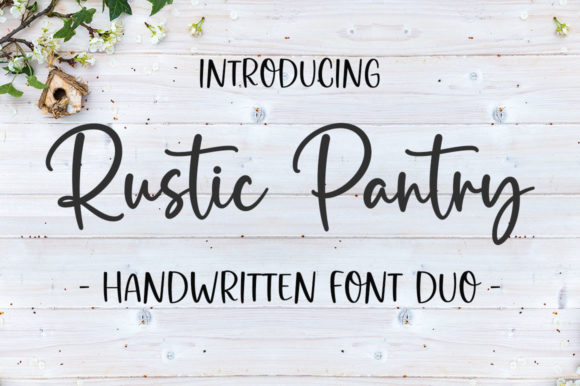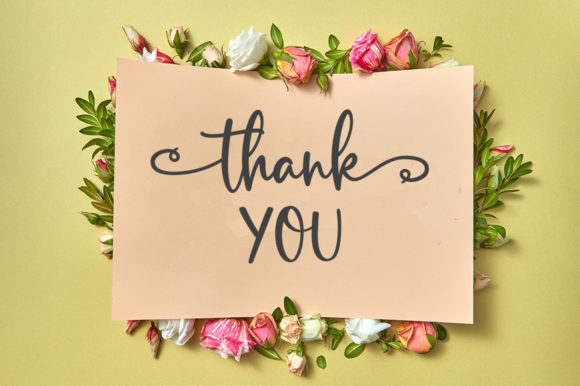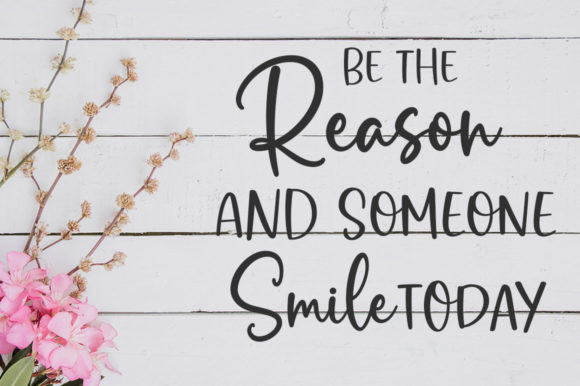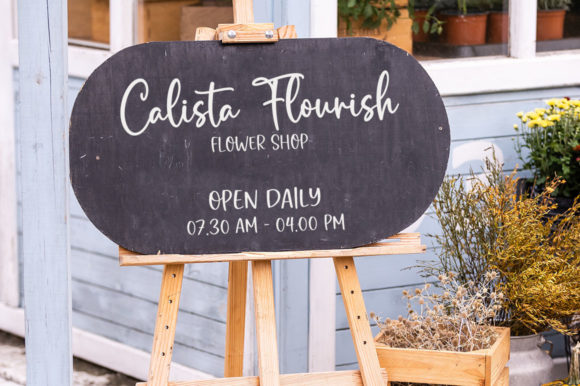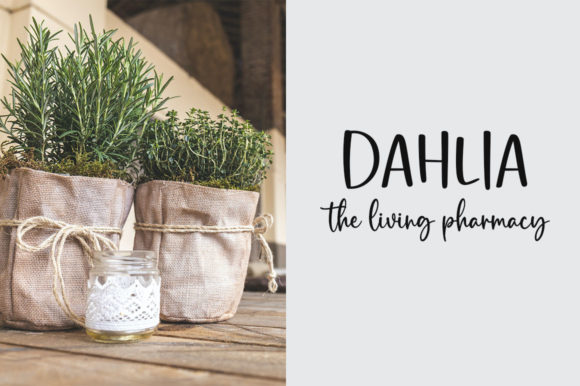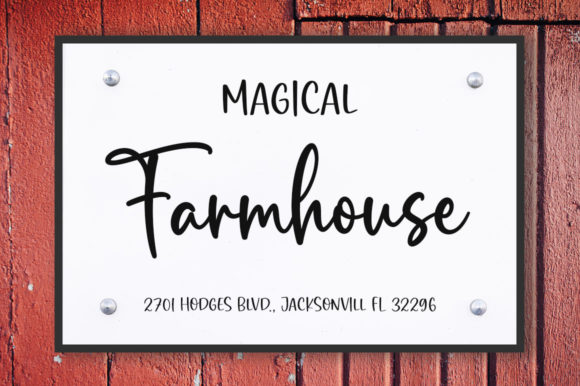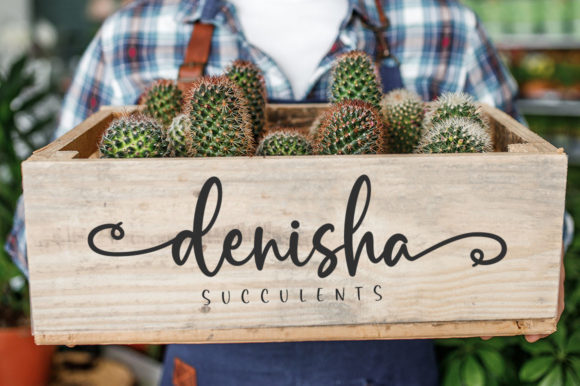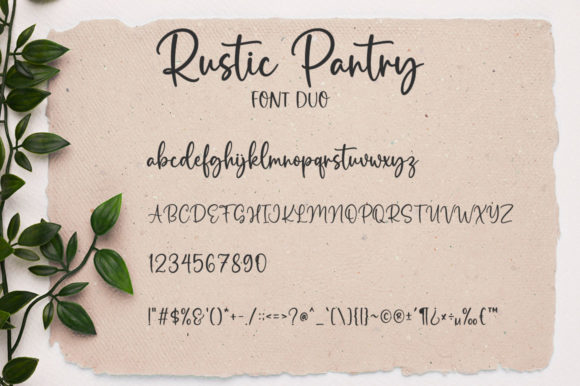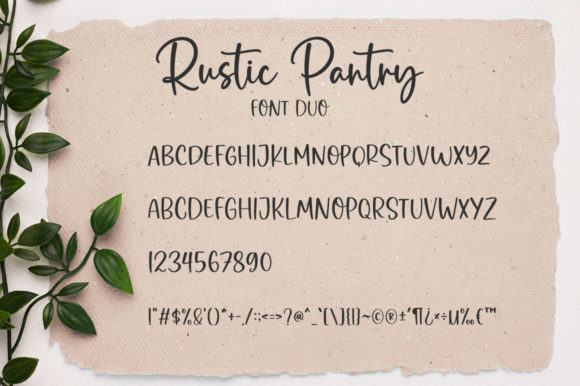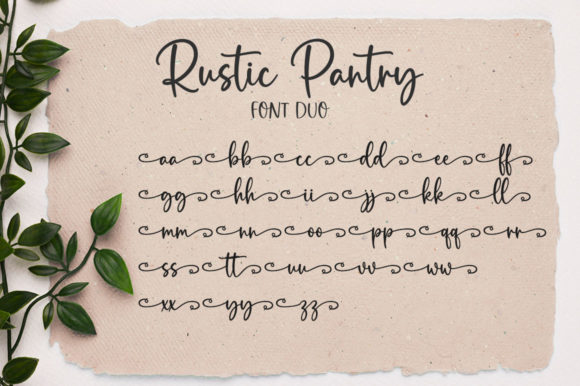
Rustic Pantry Font
About Rustic Pantry Font
Introducing Rustic Pantry, a delicate, elegant, and flowing handwritten font that boasts beautiful and well-balanced characters. This font is designed to seamlessly match a wide pool of designs, offering versatility and a touch of sophistication to your creative projects. What sets Rustic Pantry apart is its PUA encoding, ensuring easy access to all the glyphs and swashes for enhanced customization.
The delicate and flowing nature of Rustic Pantry makes it a perfect choice for a variety of applications. Whether you’re working on invitations, branding, product packaging, or any design that demands an elegant touch, this font delivers a harmonious and visually appealing result.
The PUA encoding feature of Rustic Pantry opens up a world of possibilities for designers. Accessing the various glyphs and swashes becomes effortless, allowing for creative freedom and customization that suits your unique design needs.
From delicate wedding invitations to sophisticated branding projects, Rustic Pantry adapts seamlessly to diverse design contexts, bringing a refined aesthetic to your text. Let it be the font that enhances the elegance of your projects, ensuring a well-balanced and visually pleasing outcome.
In summary, Rustic Pantry is not just a font; it’s a delicate and elegant handwritten script that offers versatility and sophistication to your creative endeavors. With PUA encoding, it becomes a powerful tool for customization, allowing you to tailor the font to suit your specific design vision.